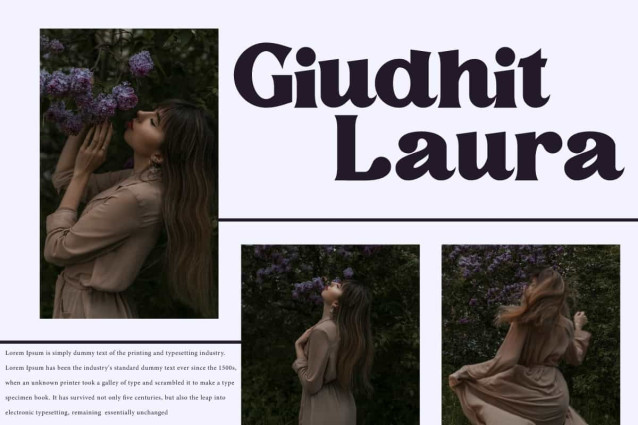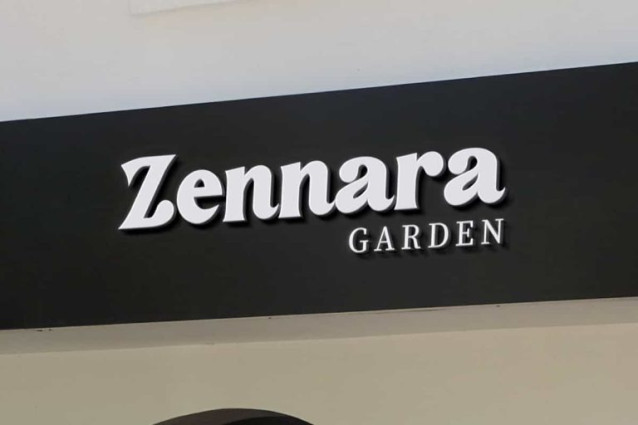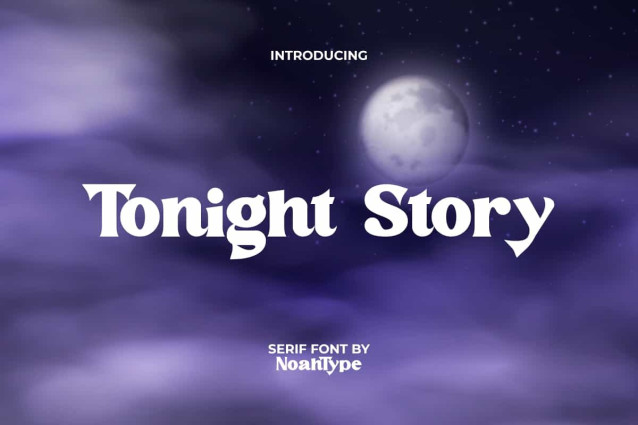
Tonight Story Font
Tonight Story Font is an adorable and lovely serif font. This font has a thick and enchanting character so that it can radiate beauty that is clearly read. It will be perfect for any design, such as signage, brand image, cover, custom design, invitation, label, marketing material, menu, poster, product packaging, quotes, stationery, web, and many more!
Tonight Story Font includes full set of Uppercase and Lowercase Basic Characters, Numerals and Punctuation. This font will be great for many industries, such as fashion, advertising, beauty product, cafe, event or festival, jewelry and accessories, photography, printing, publishing, restaurant, etc.